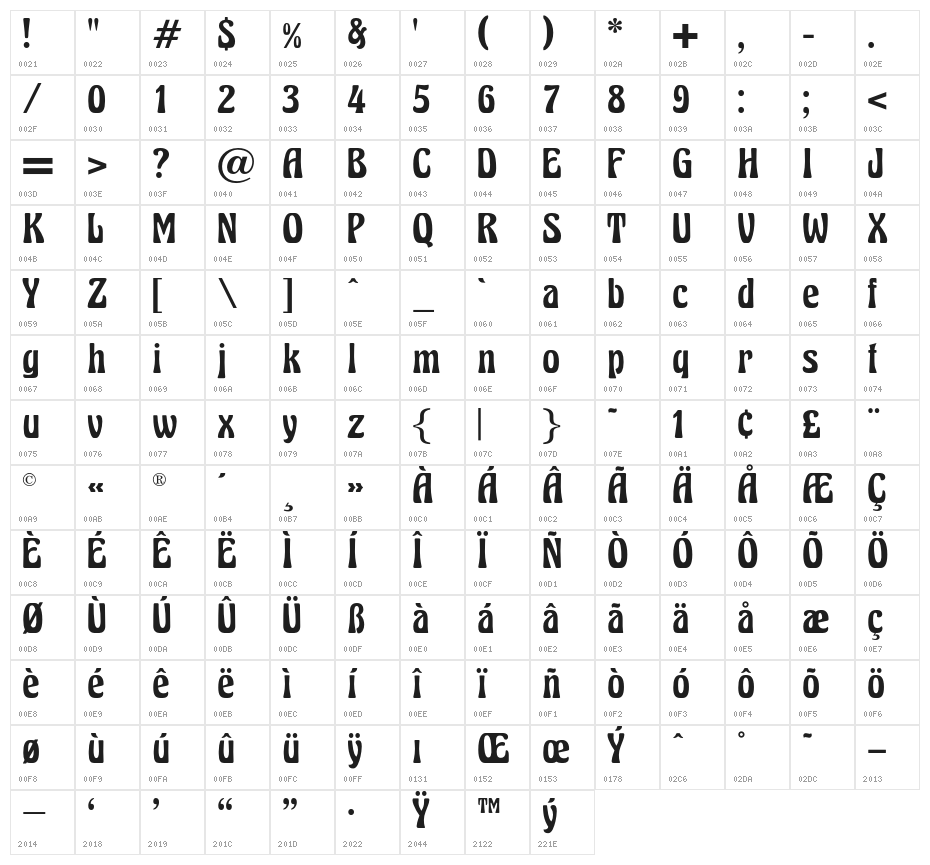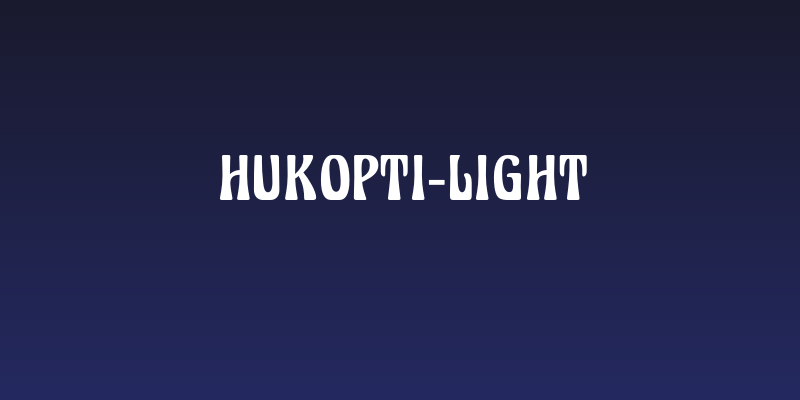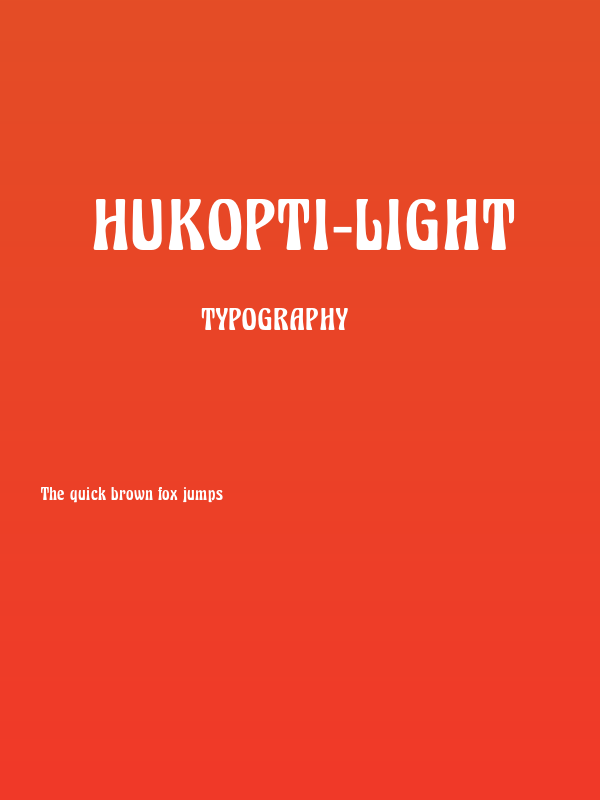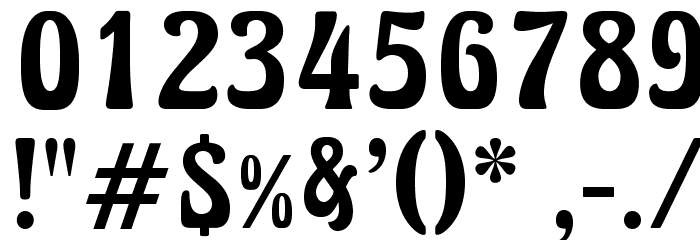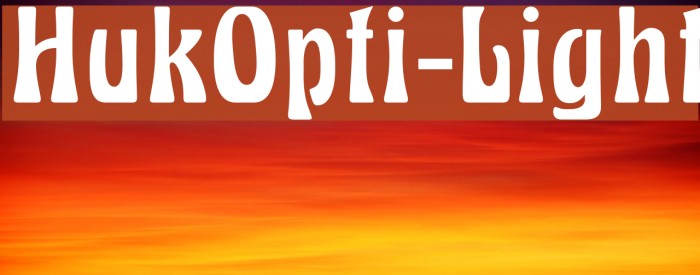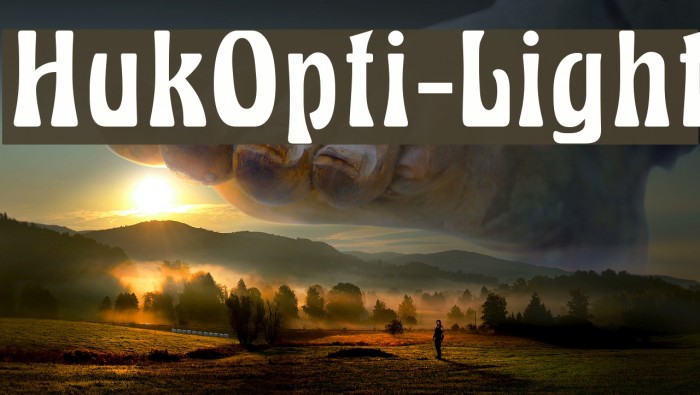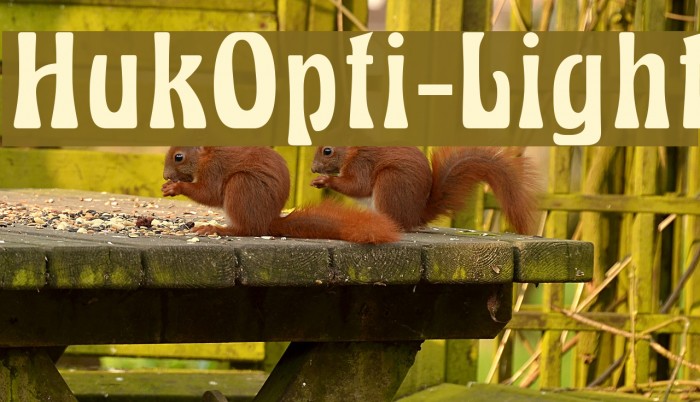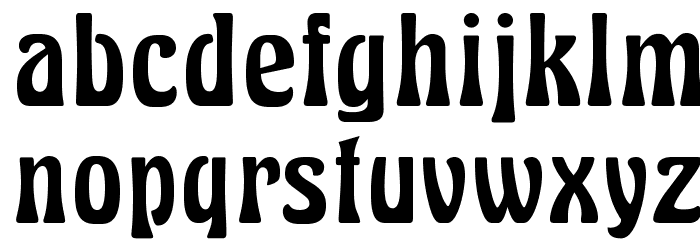
HukOpti-Light Font
HukOpti-Light Description
This font features a playful and bold design with a unique, slightly whimsical style. The characters have a rounded, soft appearance with moderate stroke contrast, giving them a friendly and approachable look. The uppercase letters are slightly taller than the lowercase, with a consistent width that maintains readability. The numbers and special characters follow the same design principles, ensuring a cohesive appearance across all glyphs. The overall style is decorative, making it suitable for projects that require a touch of personality and flair.
| Proposed Projects | Ideal for children's books, playful branding, posters, and creative invitations. |